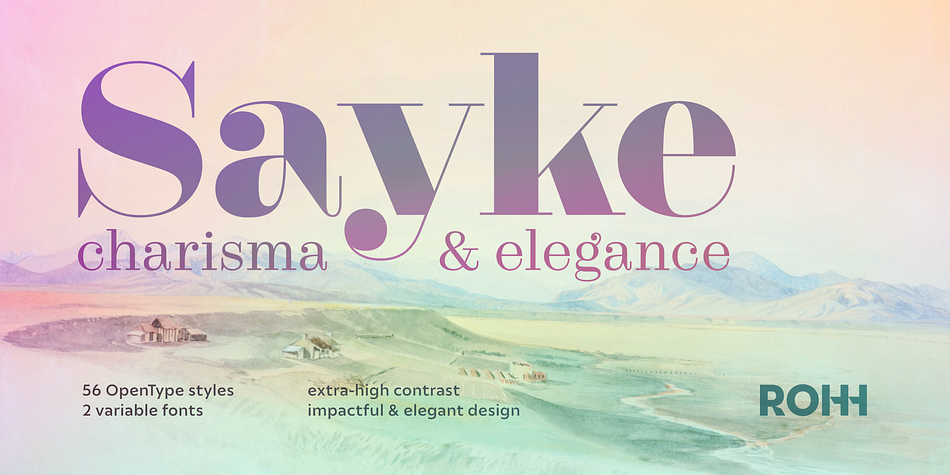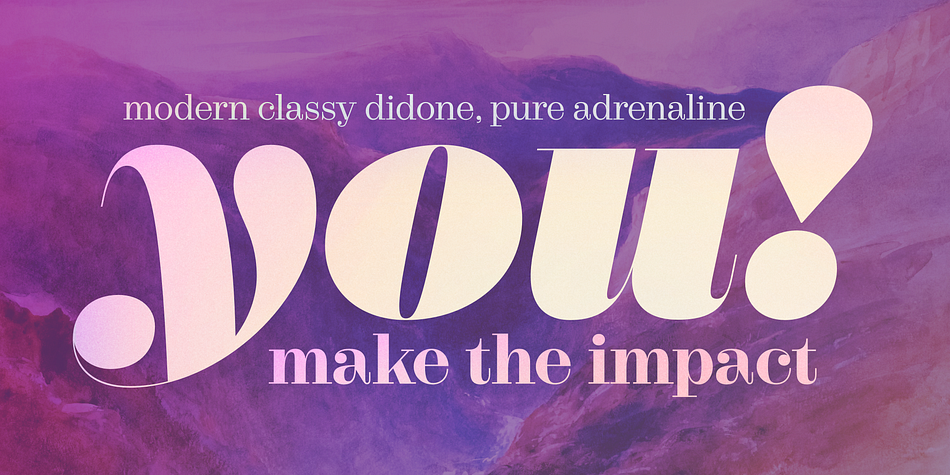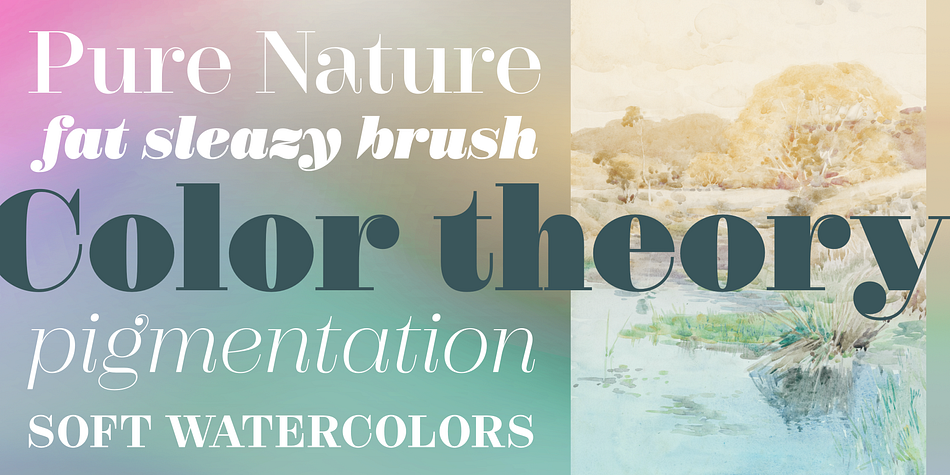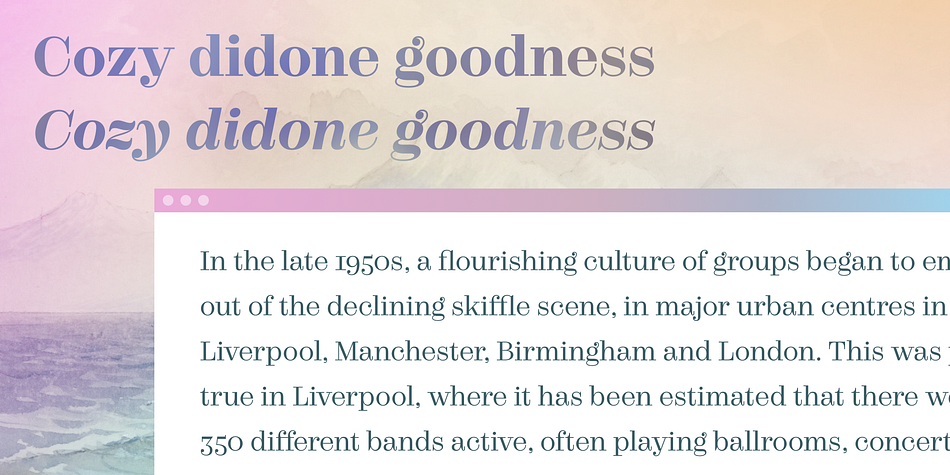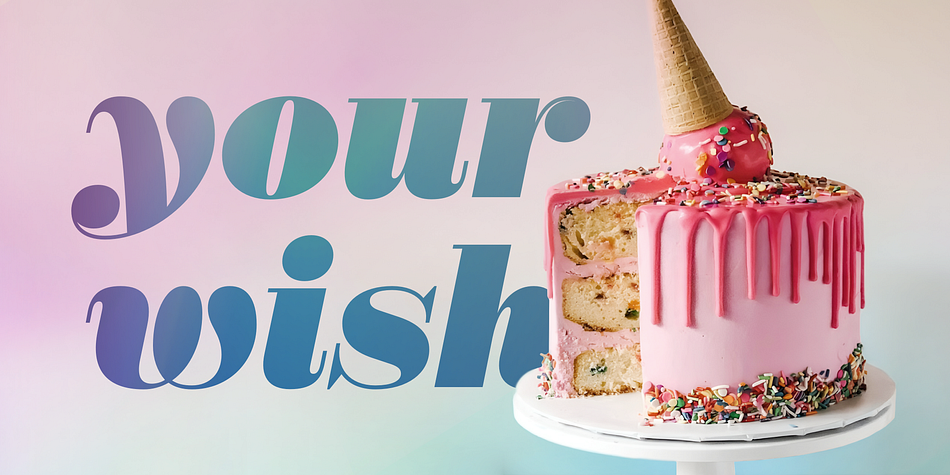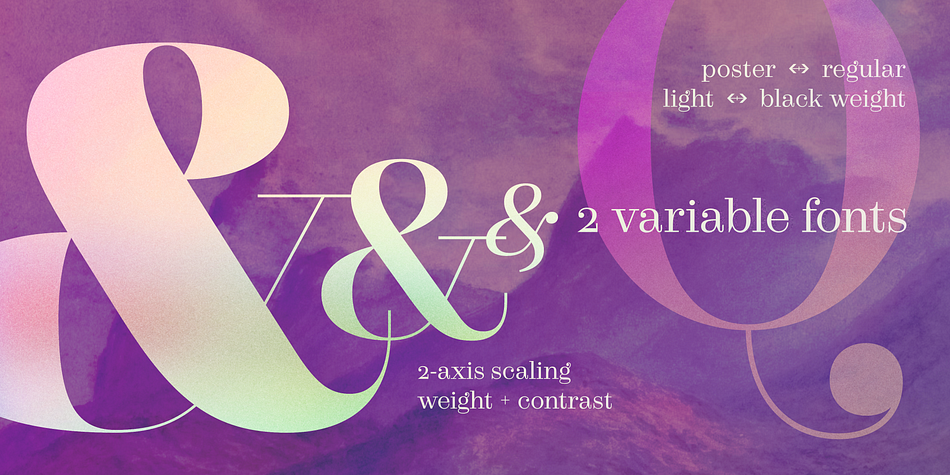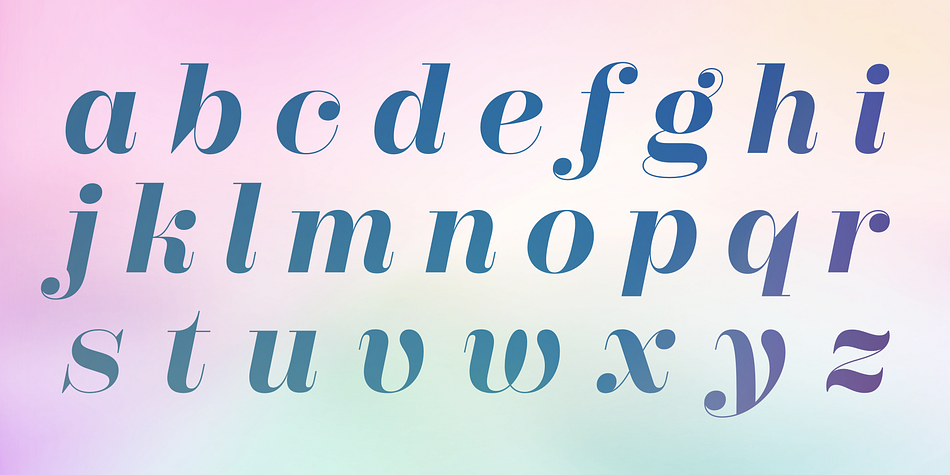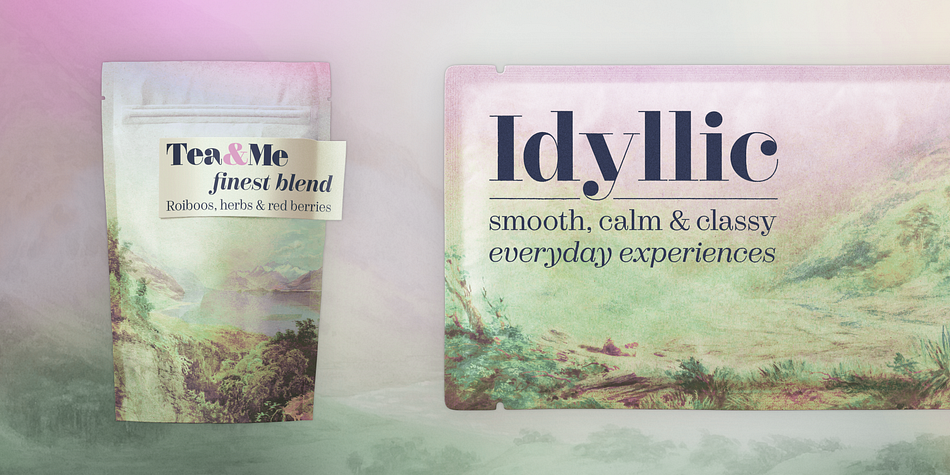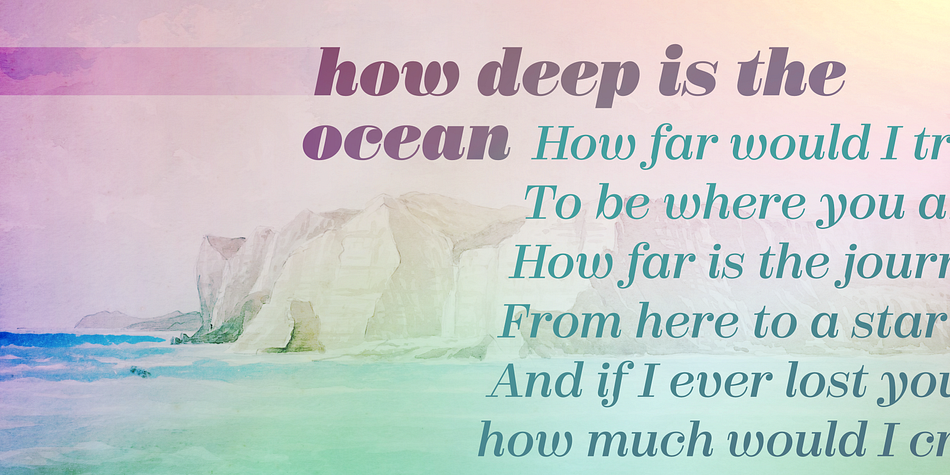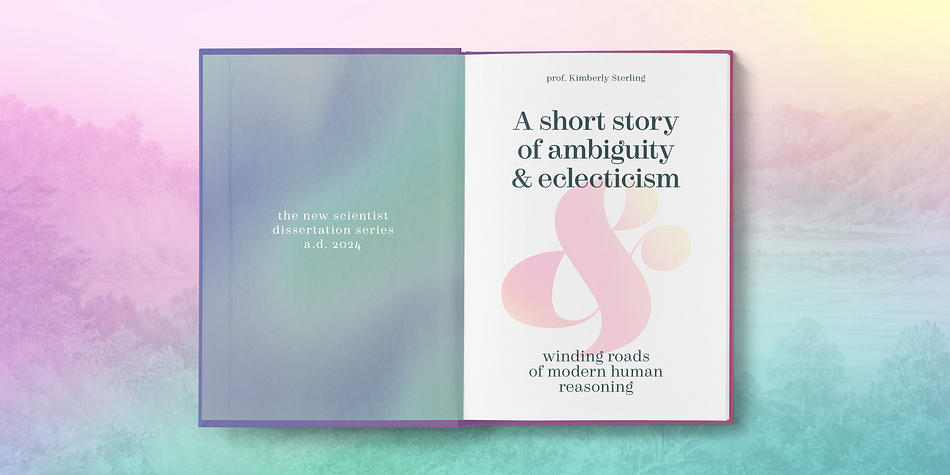
Sayke
Designed by Roch Modrzejewski, Sayke is a display serif font family. This typeface has fifty-eight styles and was published by ROHH.
Sayke™ is a modern and elegant didone typeface, a charismatic serif designed for magazines, book covers, posters, advertising and branding. It is a sibling of Rayko™ - with more traditional letterform details and added true italic styles.
Sayke is suited to such industries as fashion, arts, home decor, lifestyle, gardening, book publishing, etc.
The full family consists of 56 OTF fonts - 7 weights in 4 different optical sizes (for text paragraphs, headlines, display sizes and big posters) and corresponding true italics. The family offers two 2-axis (weight and optical size) variable fonts that make the typeface even more flexible and versatile, also having better animation options.
Sayke family is equipped in OpenType features such as case sensitive forms, lining and old style figures, basic fractions and superscript/subscript, slashed zero, currencies and symbols.